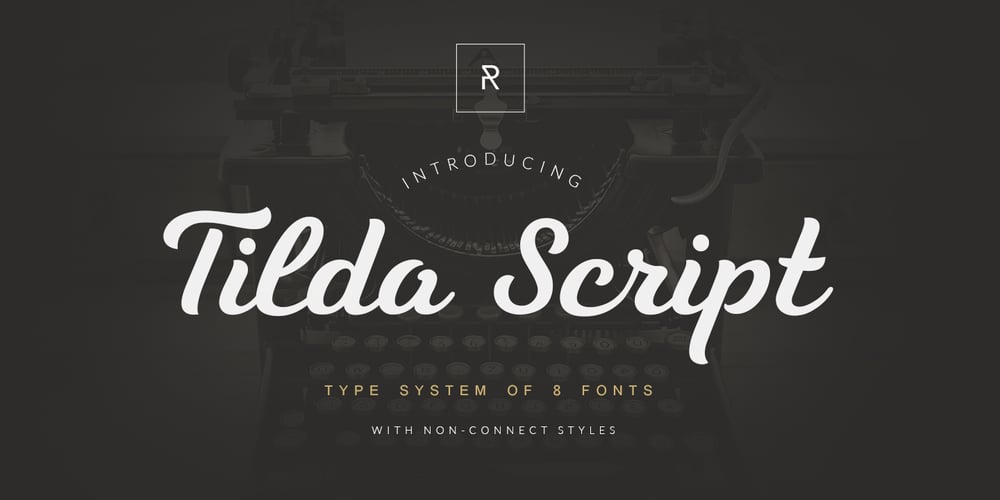
Tilda Script Font Family was designed by Roman Polishchuk and published by Roman Polishchuk. Tilda Script contains 8 styles and family package options. Tilda Script Family is a clean and lining script with regular and non-connect versions in four weights. With this family you can craft solid logotypes with a unique look, set posters and ads, and even run longer lines of copy on packaging. Tilda Script is a versatile family with extensive language support and advanced typographic features including:Ligatures, Stylistic Alternates, Stylistic Sets.